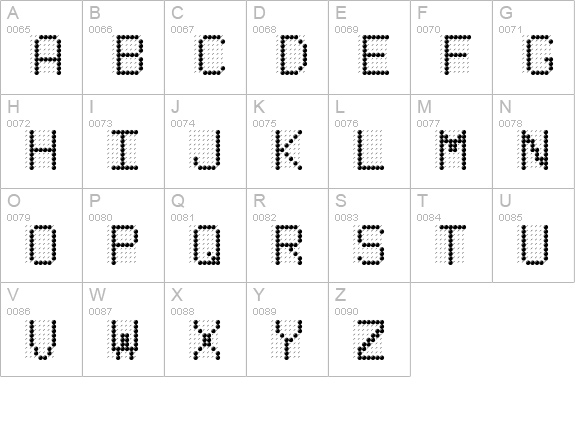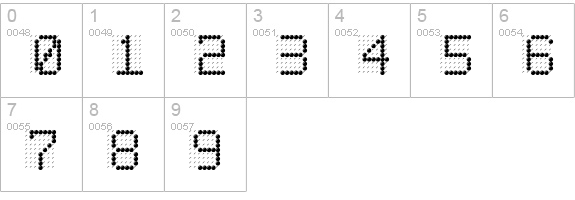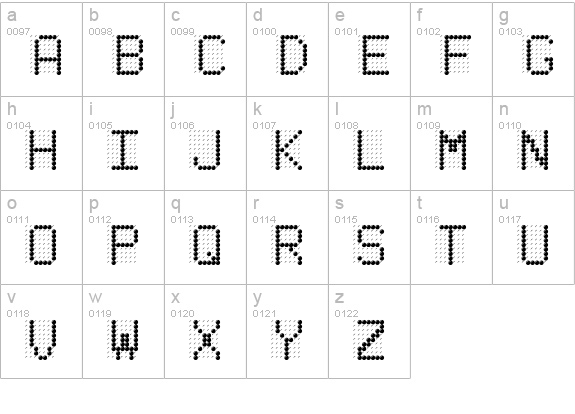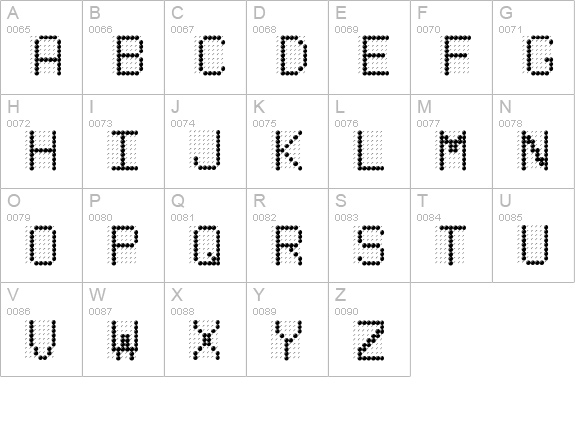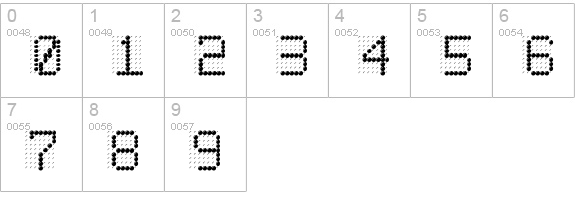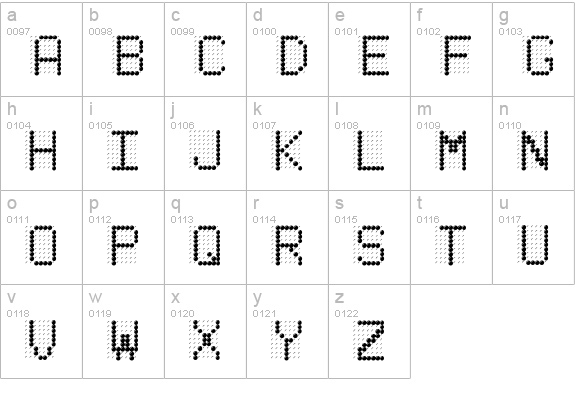
LED BOARD REVERSED Font Details
The LED BOARD REVERSED font is a stunning display typeface that will electrify your designs with its bold and eye-catching appearance. Inspired by the iconic LED signs found in bustling city streets, this font captures the essence of modern urban life. With its reversed lettering, the LED BOARD REVERSED font adds a unique twist to your projects, making them stand out from the crowd. The bold and sharp lines of each character create a visual impact that commands attention, making it perfect for headlines, logos, and posters. This font is not only visually striking, but it also brings a sense of nostalgia and a touch of retro charm. It pays homage to the classic LED signs that have been a part of our urban landscape for decades, giving your designs a timeless quality. One of the best things about the LED BOARD REVERSED font is that it is freely available to download at FontsMarket.com. Whether you are a professional designer or a hobbyist, you can easily access this font and add it to your collection without any cost. This makes it an incredibly valuable resource for anyone looking to elevate their design game. So why not give your designs a jolt of energy and style with the LED BOARD REVERSED font? Download it for free at FontsMarket.com and let your creativity shine with its electrifying presence.